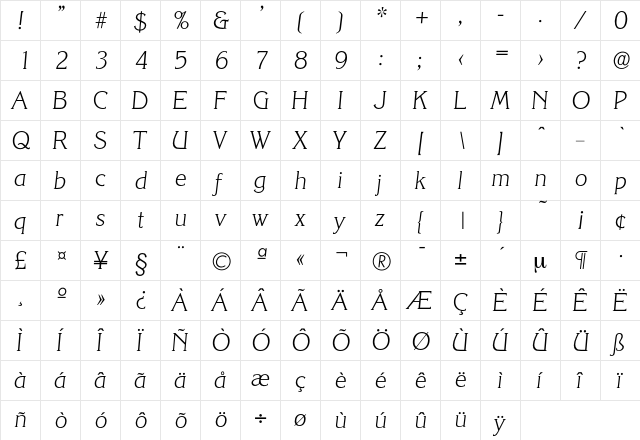
Korinth-XlightIta Regular Font Preview
Korinth-XlightIta Regular
Design Context for Korinth-XlightIta Typeface
Korinth-XlightIta takes a measured approach to typography — its balanced proportions and neutral character make it a reliable workhorse for both digital and print work. The delicate stroke weight brings airiness and refinement to layouts.